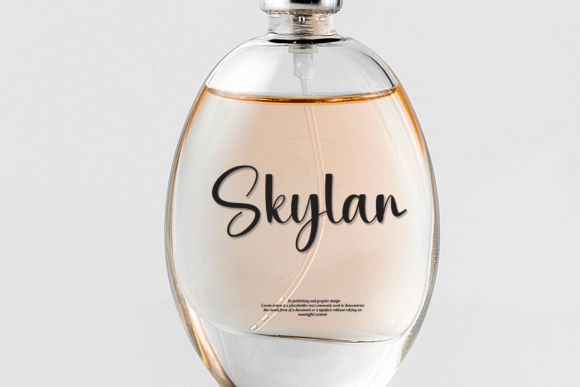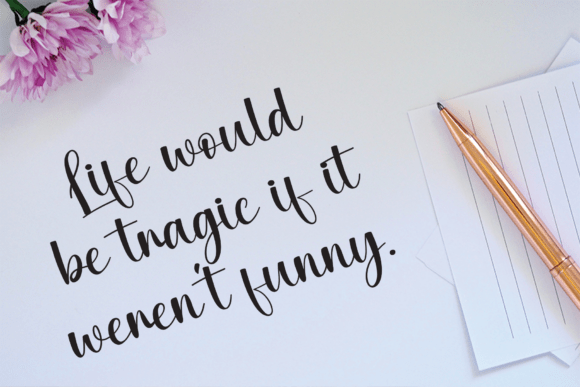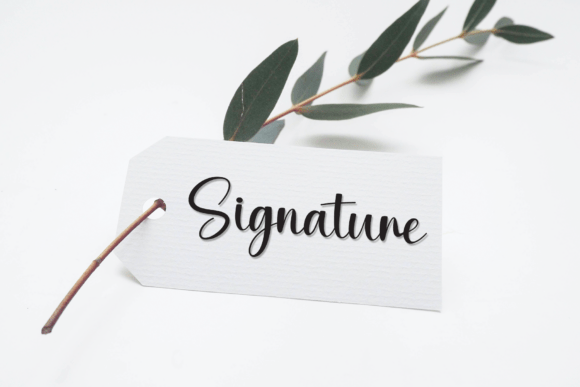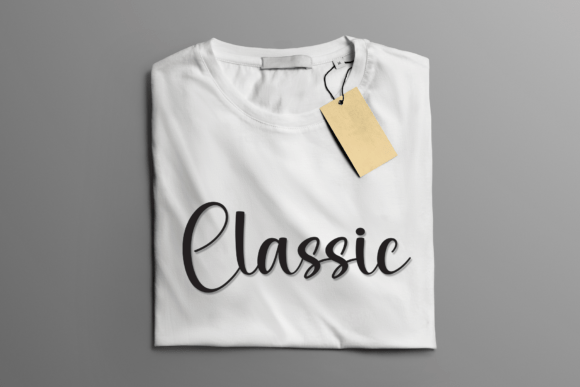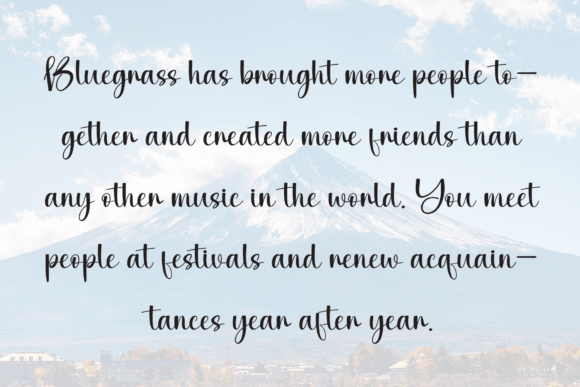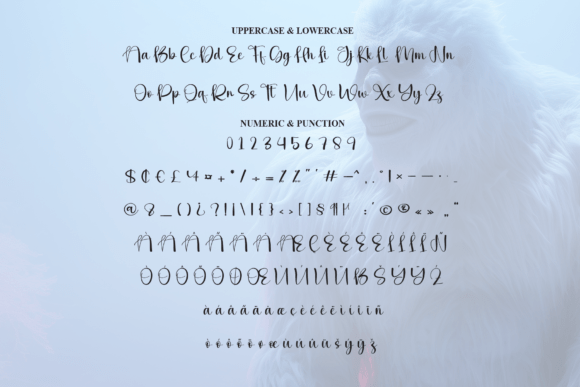
Discover the Delightful Bigfoot Font: Adding Whimsy to Your Designs
Are you tired of using the same old fonts in your designs? Look no further! Introducing Bigfoot Font, a charmingly soft and personable handwritten display font that’s perfect for adding a touch of whimsy and delight to any design. Its joyful appeal shines particularly bright when incorporated into wedding invitations, gift cards, or any creative project craving a playful twist.
The Perfect Font for Creative Projects
Bigfoot Font is a unique and refreshing addition to any designer’s toolkit. Its soft, handwritten curves and playful vibe make it an ideal choice for designers and crafters looking to add a personal touch to their work. Whether you’re creating wedding invitations, gift cards, or any other type of design, Bigfoot Font is sure to bring a smile to your clients’ faces.
What Makes Bigfoot Font So Special?
So, what sets Bigfoot Font apart from other fonts? Here are just a few reasons why Bigfoot Font is a must-have for designers and crafters:
- Unique and Playful Style: Bigfoot Font has a one-of-a-kind, handwritten style that’s both soft and personable. Its playful vibe is sure to add a touch of whimsy to any design.
- Versatile: Bigfoot Font is perfect for a wide range of design applications, from wedding invitations and gift cards to social media graphics and more.
- Easy to Read: Despite its playful style, Bigfoot Font is easy to read, making it perfect for designs that require a clear and concise message.
- Customizable: Bigfoot Font can be customized to fit your design needs, making it easy to pair with other fonts and design elements.
How to Use Bigfoot Font in Your Designs
Using Bigfoot Font in your designs is easy! Here are a few tips to get you started:
- Pair with Other Fonts: Bigfoot Font pairs well with a variety of other fonts, from bold and modern to elegant and script. Experiment with different font combinations to find the perfect look for your design.
- Use in Headlines and Titles: Bigfoot Font is perfect for headlines and titles, where its playful style can really shine.
- Add to Your Design Toolkit: Bigfoot Font is a versatile font that can be used in a wide range of design applications. Add it to your design toolkit and use it to add a touch of whimsy to your designs.
Bigfoot Font in Action
So, what does Bigfoot Font look like in action? Here are a few examples of how Bigfoot Font can be used in different design applications:
- Wedding Invitations: Bigfoot Font is perfect for wedding invitations, where its playful style can add a touch of whimsy and romance.
- Gift Cards: Bigfoot Font is also great for gift cards, where its friendly vibe can make the recipient feel special.
- Social Media Graphics: Bigfoot Font can be used to create eye-catching social media graphics that are sure to grab attention.
In conclusion, Bigfoot Font is a charmingly soft and personable handwritten display font that’s perfect for adding a touch of whimsy and delight to any design. Its joyful appeal shines particularly bright when incorporated into wedding invitations, gift cards, or any creative project craving a playful twist. With its unique and playful style, versatility, and ease of use, Bigfoot Font is a must-have for designers and crafters looking to add a personal touch to their work.
Get Ready to Fall in Love with Bigfoot Font